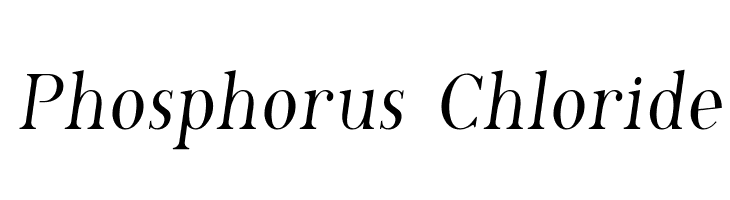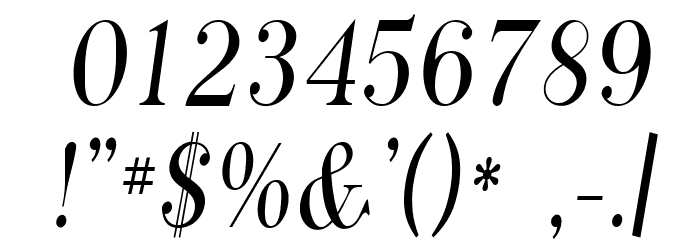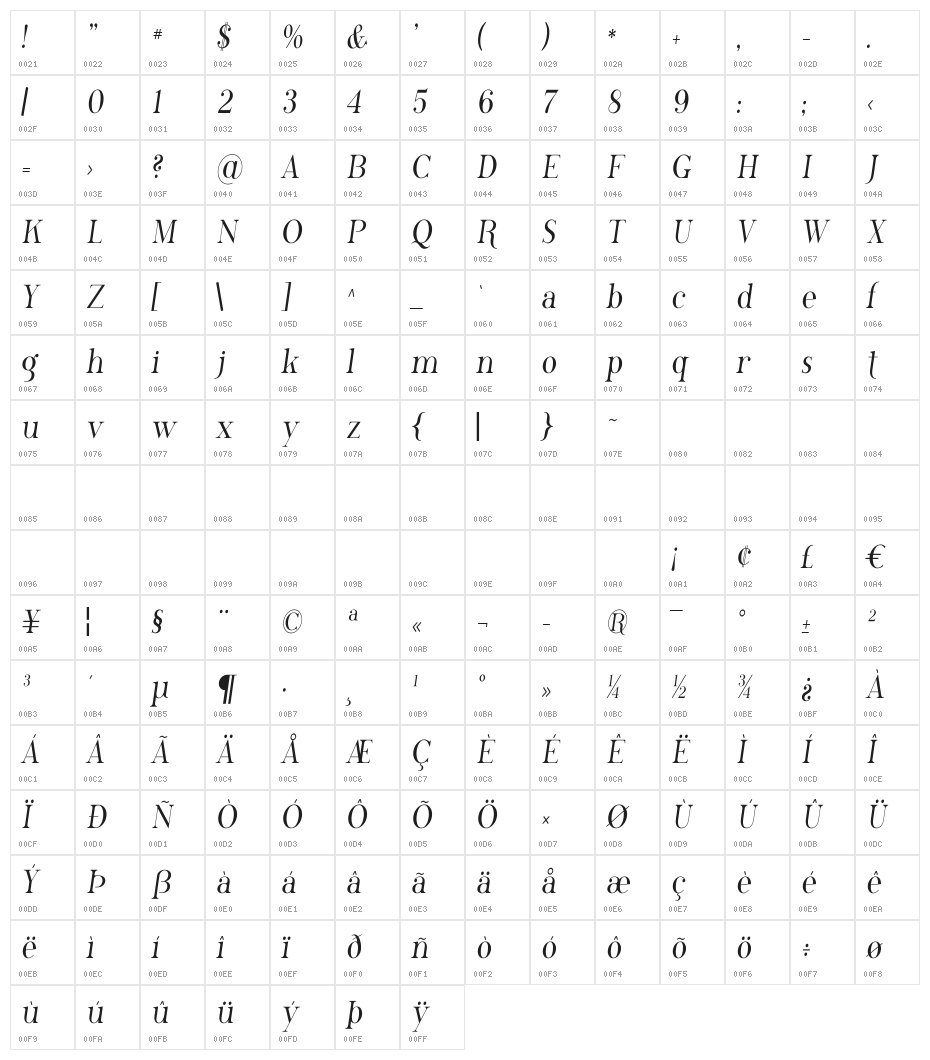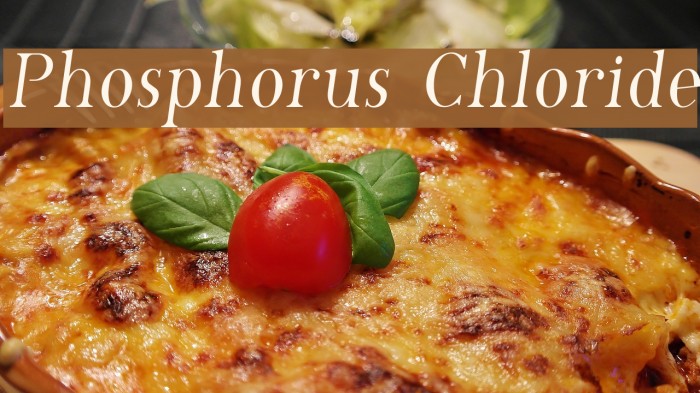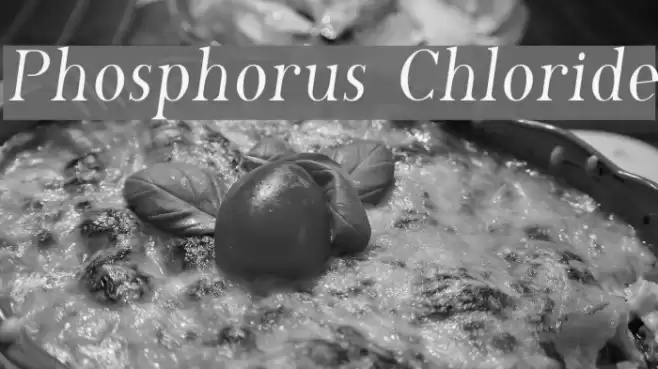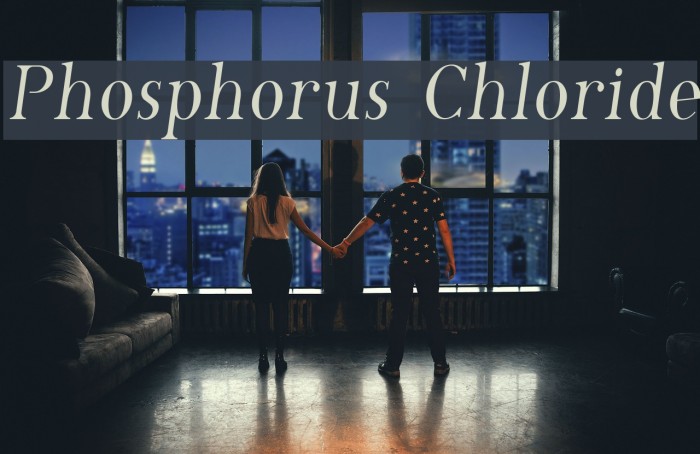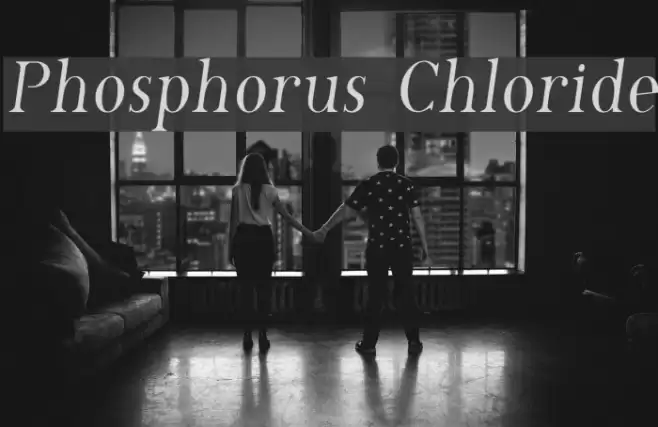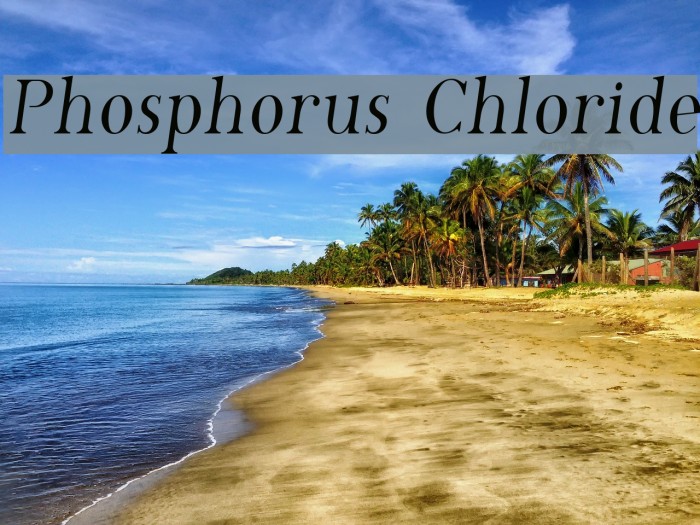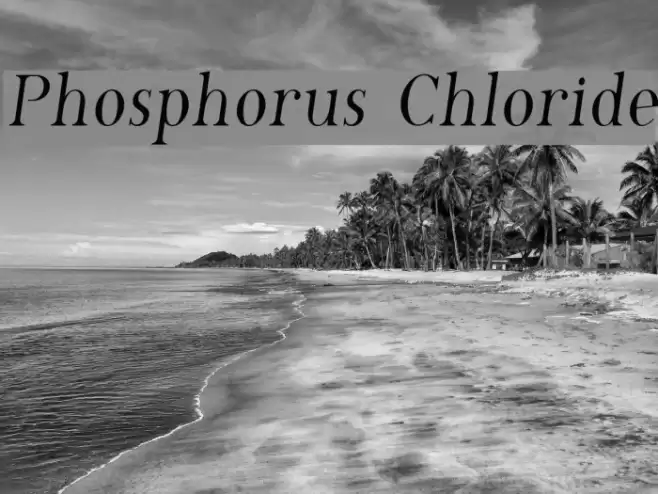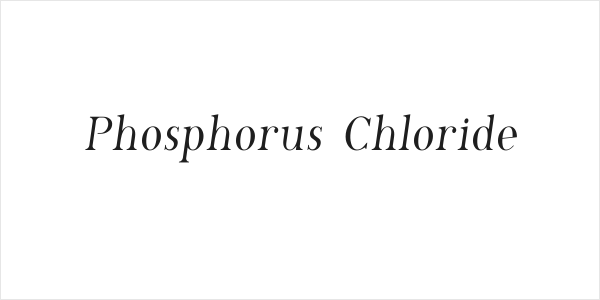
Phosphorus Chloride Font
Phosphorus Chloride Description
This font exhibits a classic and elegant serif style with a distinct italic slant, giving it a sophisticated and timeless appearance. The uppercase letters are tall and slightly narrow, with pronounced serifs that add a touch of formality. The lowercase letters maintain a consistent style, with smooth curves and a graceful flow. Numbers are aligned with the overall aesthetic, featuring clear and precise lines. Special characters are well-integrated, maintaining the font's cohesive look. The overall design is balanced, making it suitable for a variety of formal and professional applications.